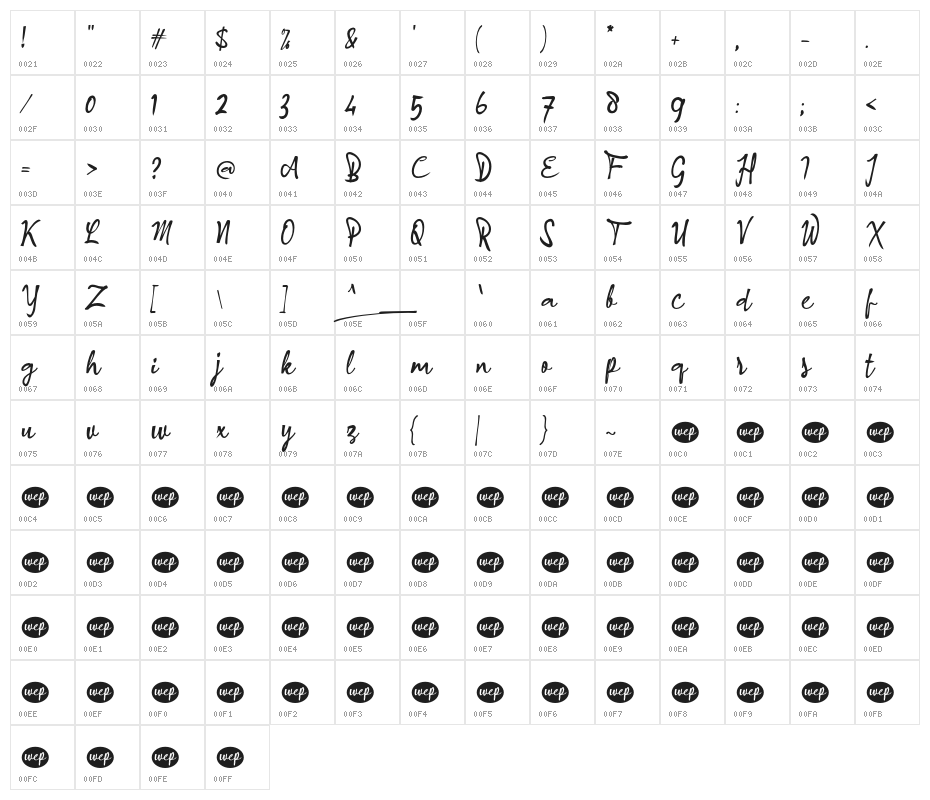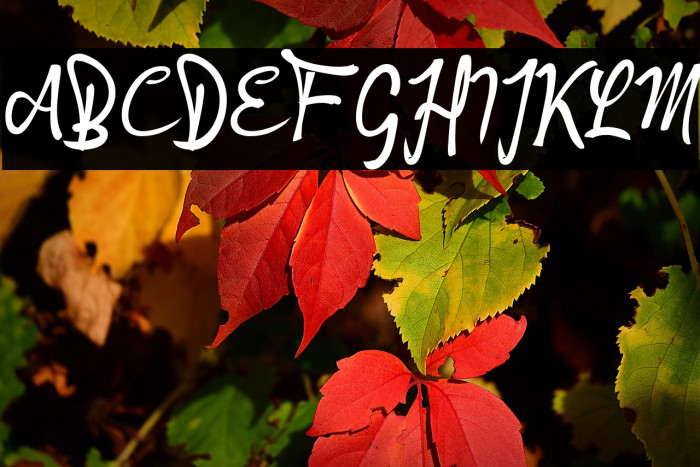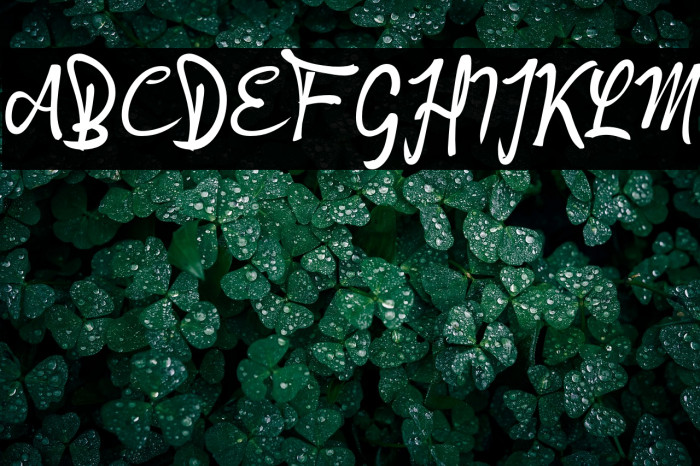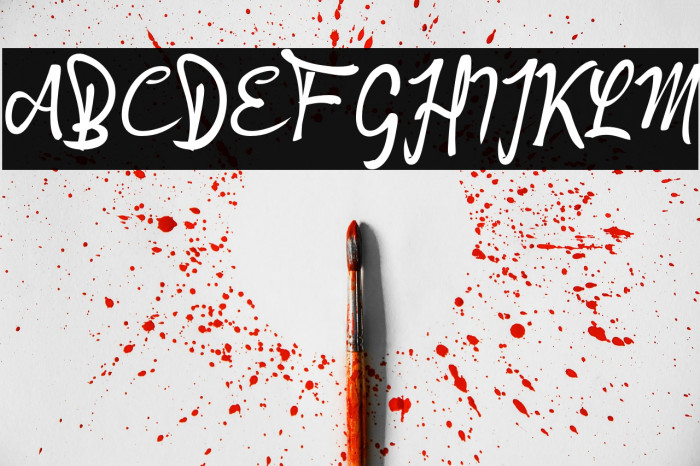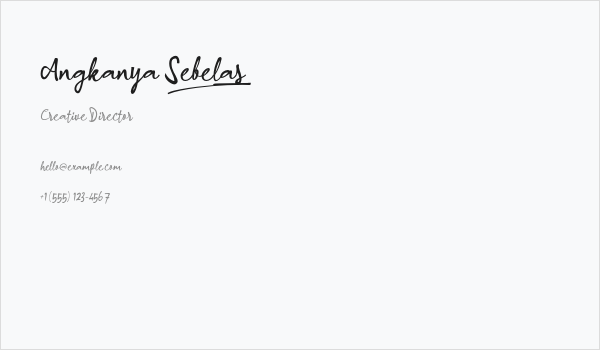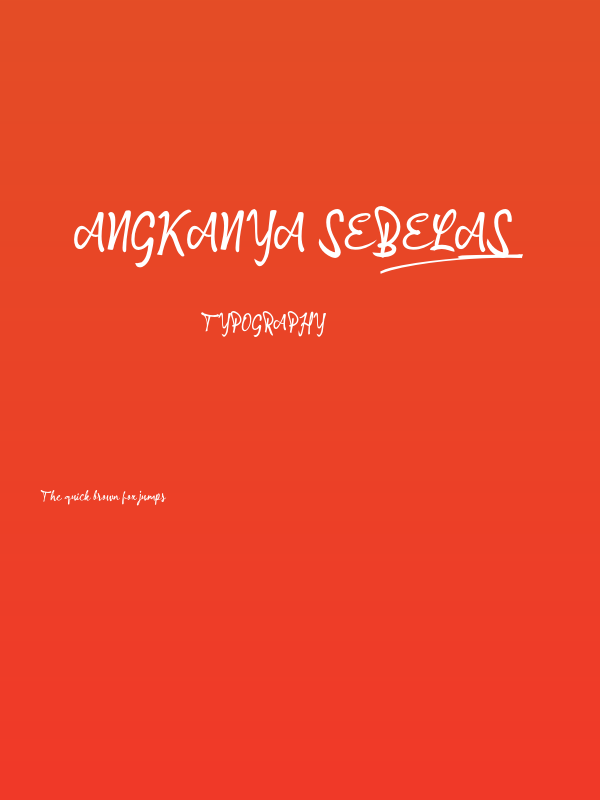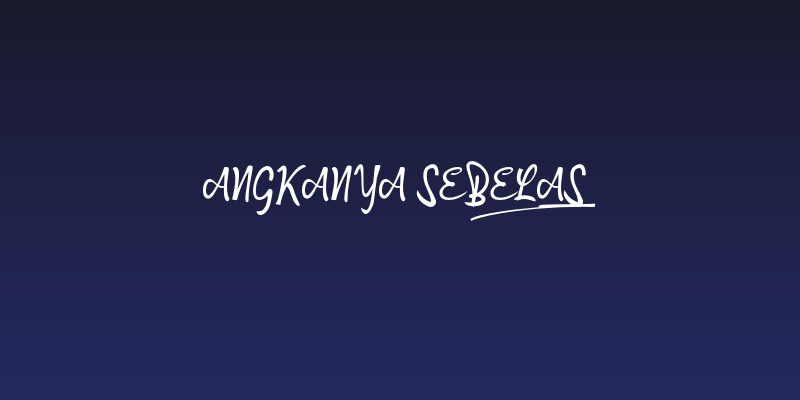
Angkanya Sebelas_ Font
Angkanya Sebelas_ Description
This font features a lively and dynamic script style with a handwritten appearance. The letters are fluid and connected, giving a sense of movement and elegance. The uppercase letters are bold and slightly slanted, while the lowercase letters maintain a consistent flow with rounded edges. Numbers and special characters are designed to match the overall script style, adding to the cohesive look. The font's playful yet sophisticated nature makes it suitable for creative projects that require a personal touch.